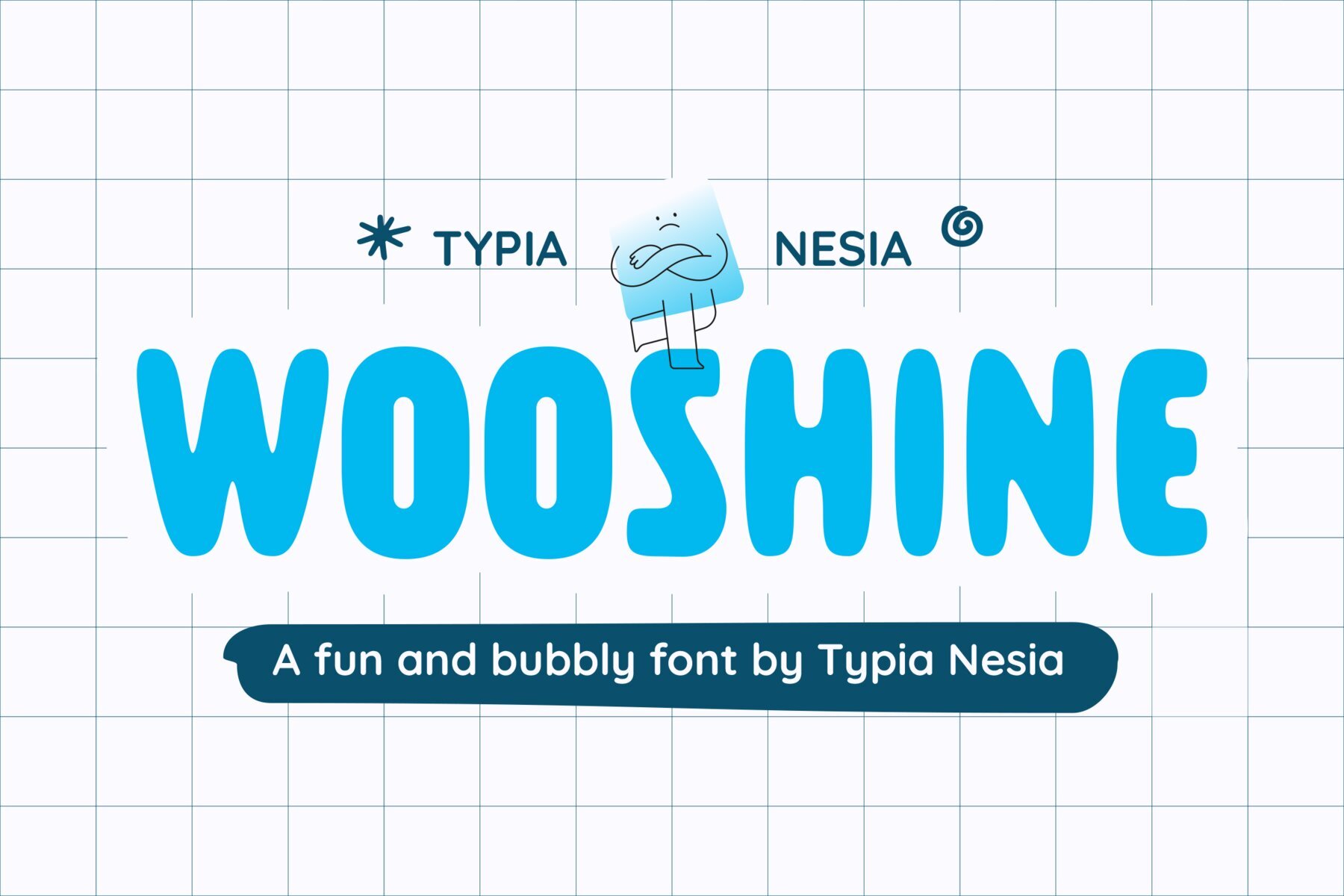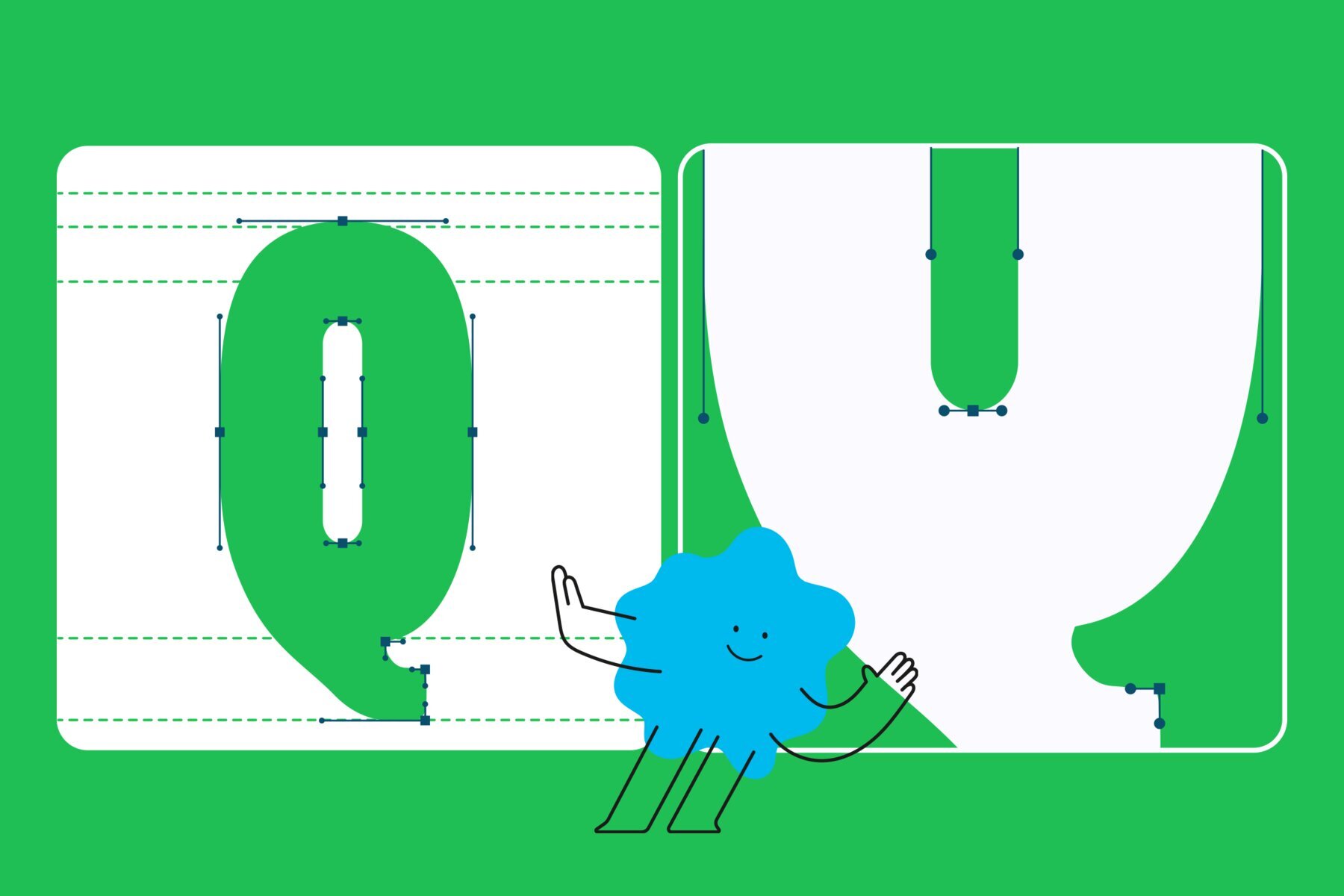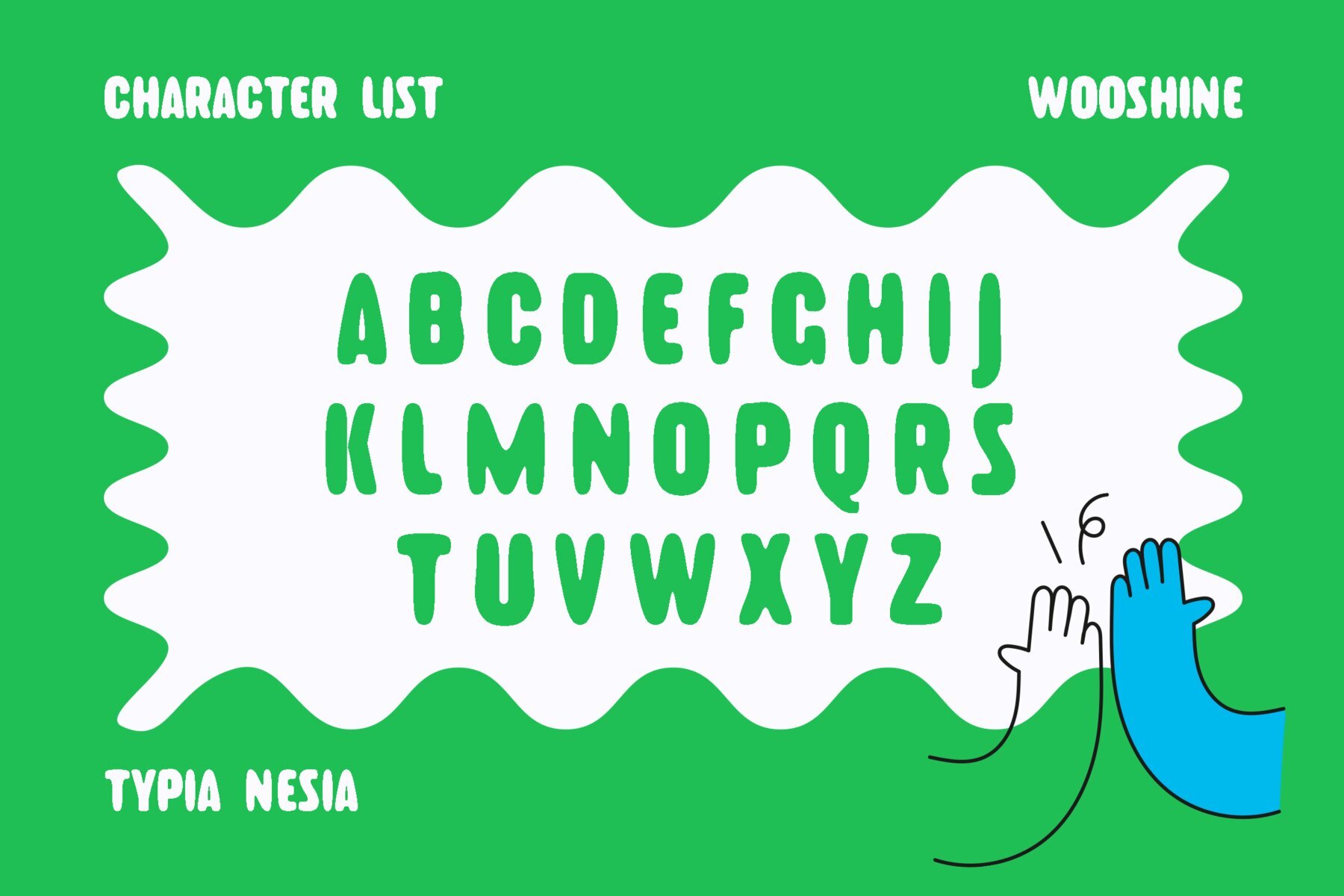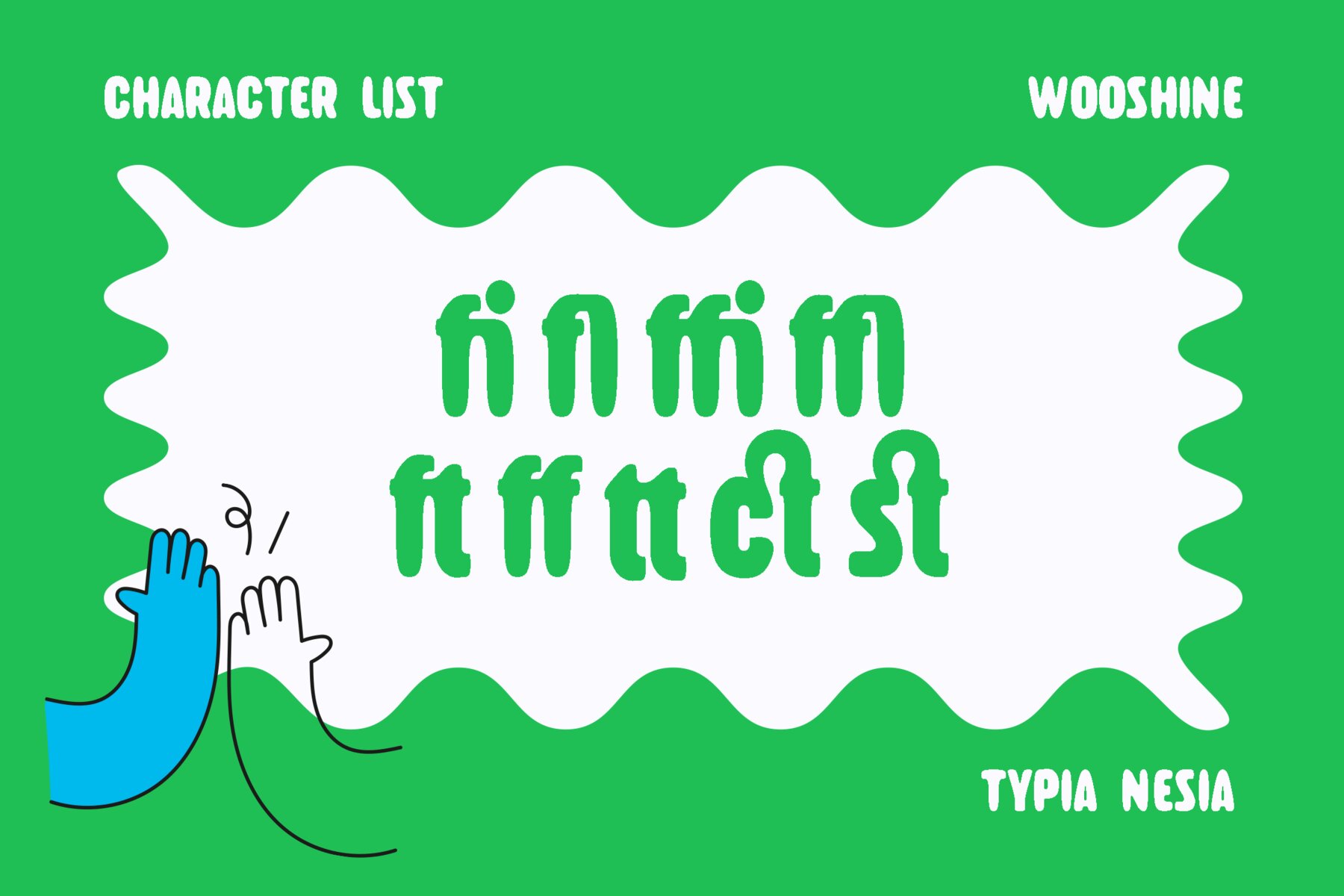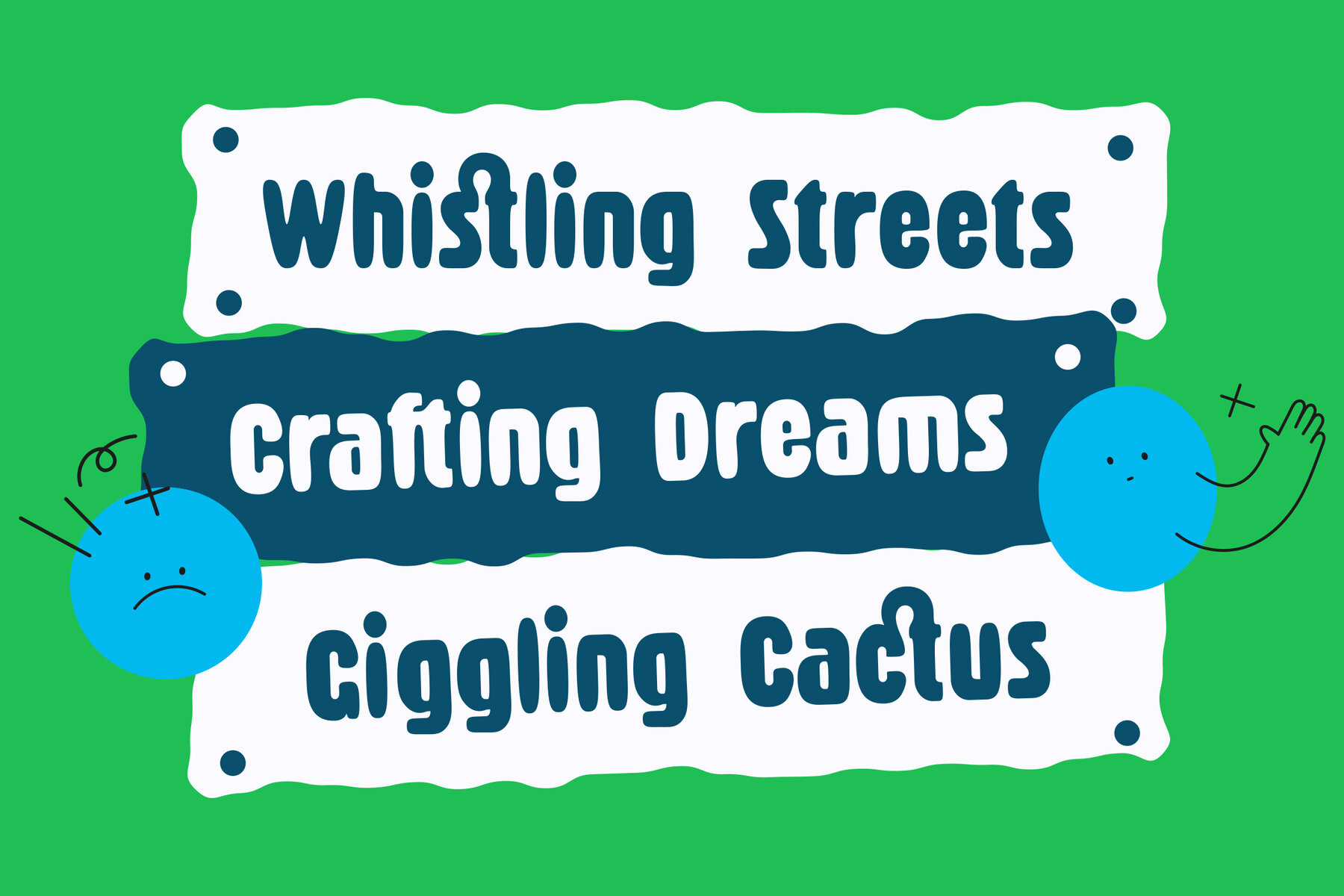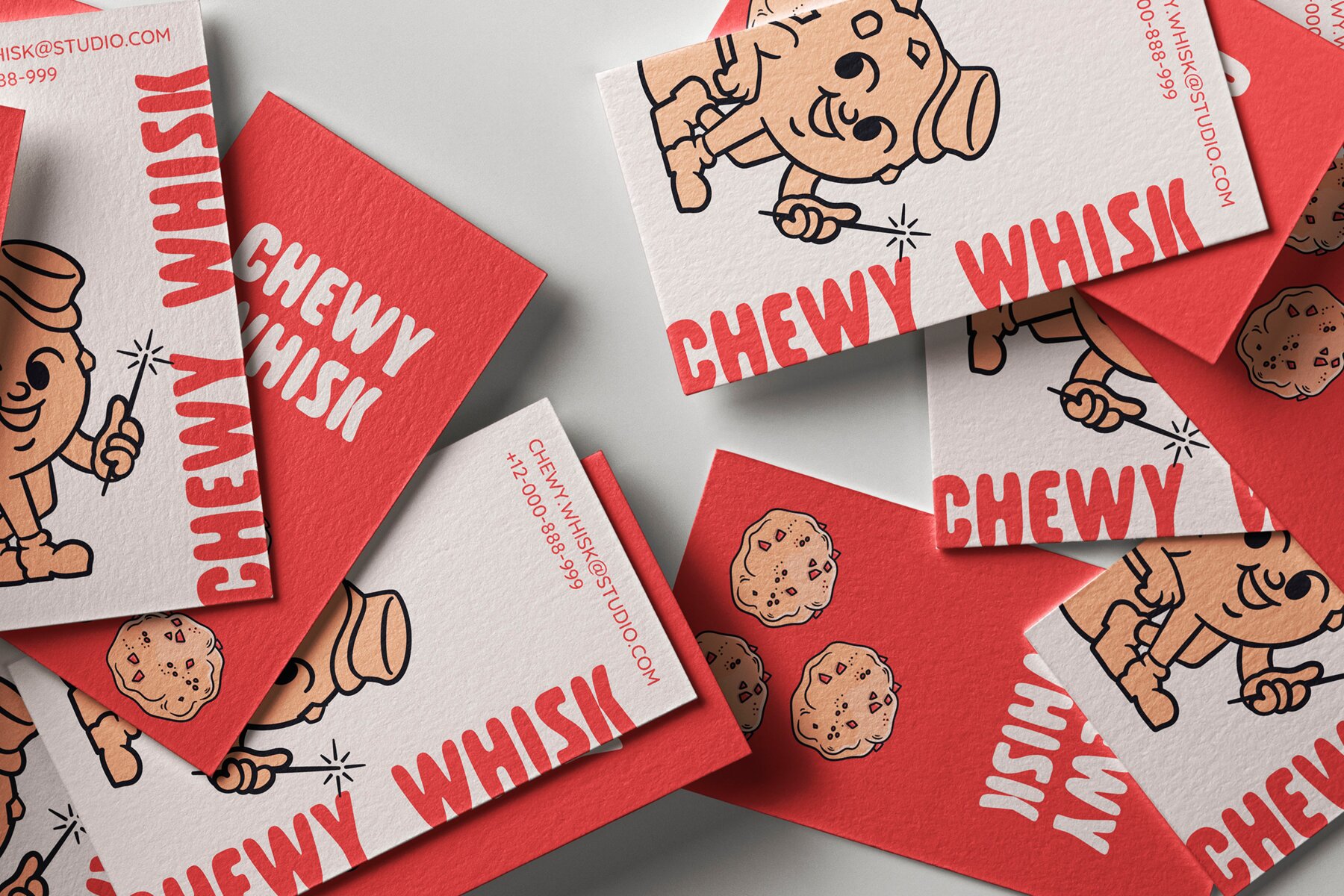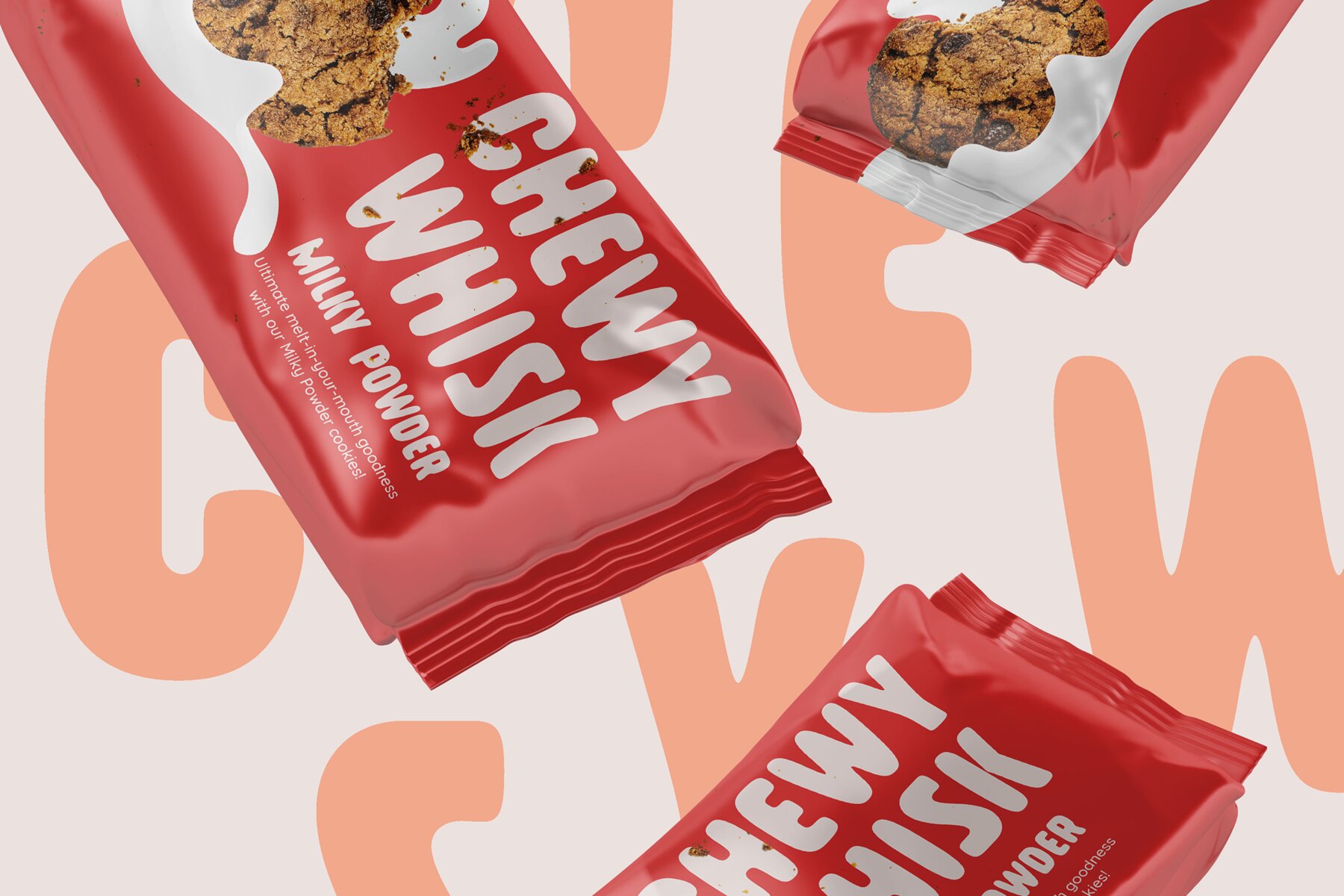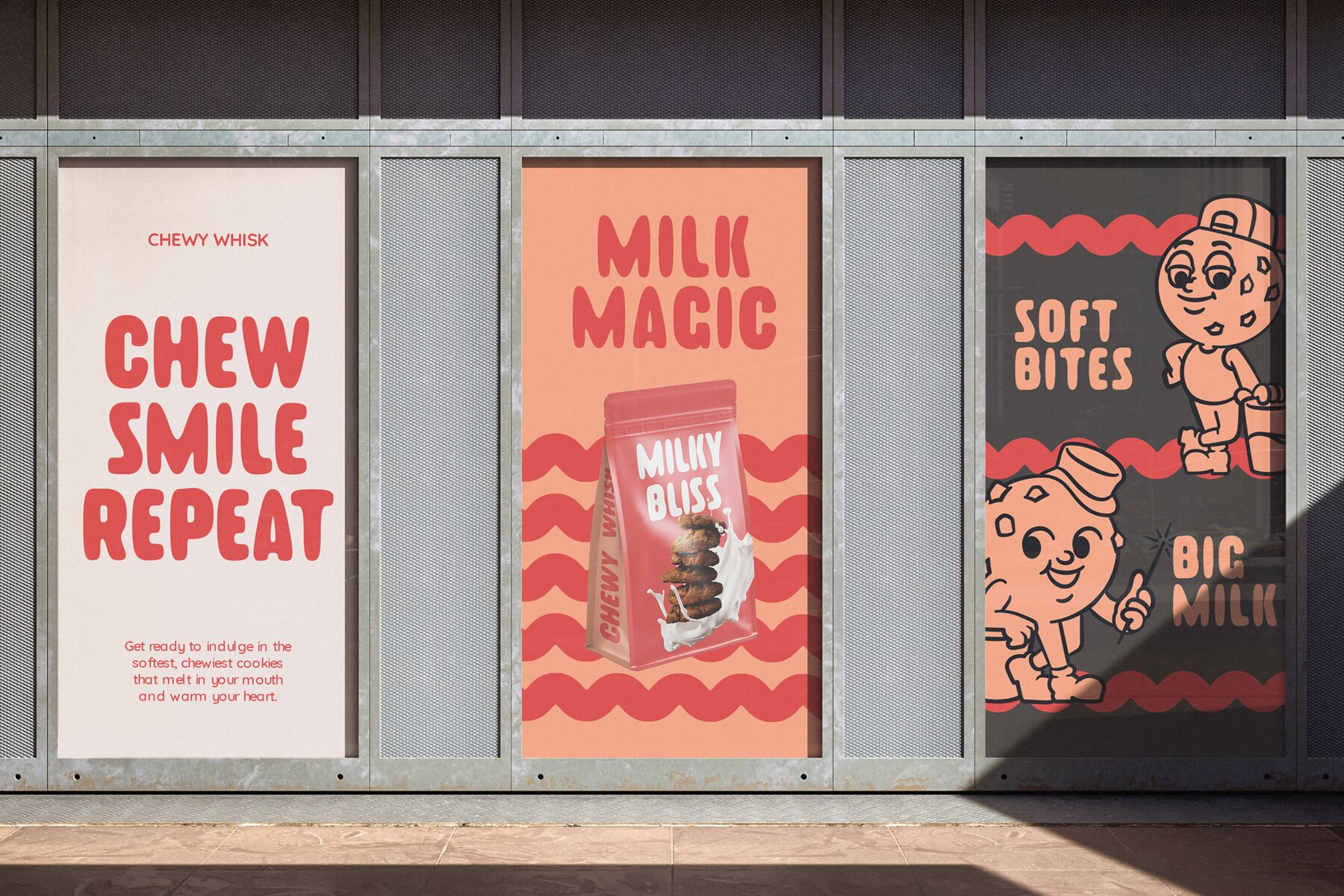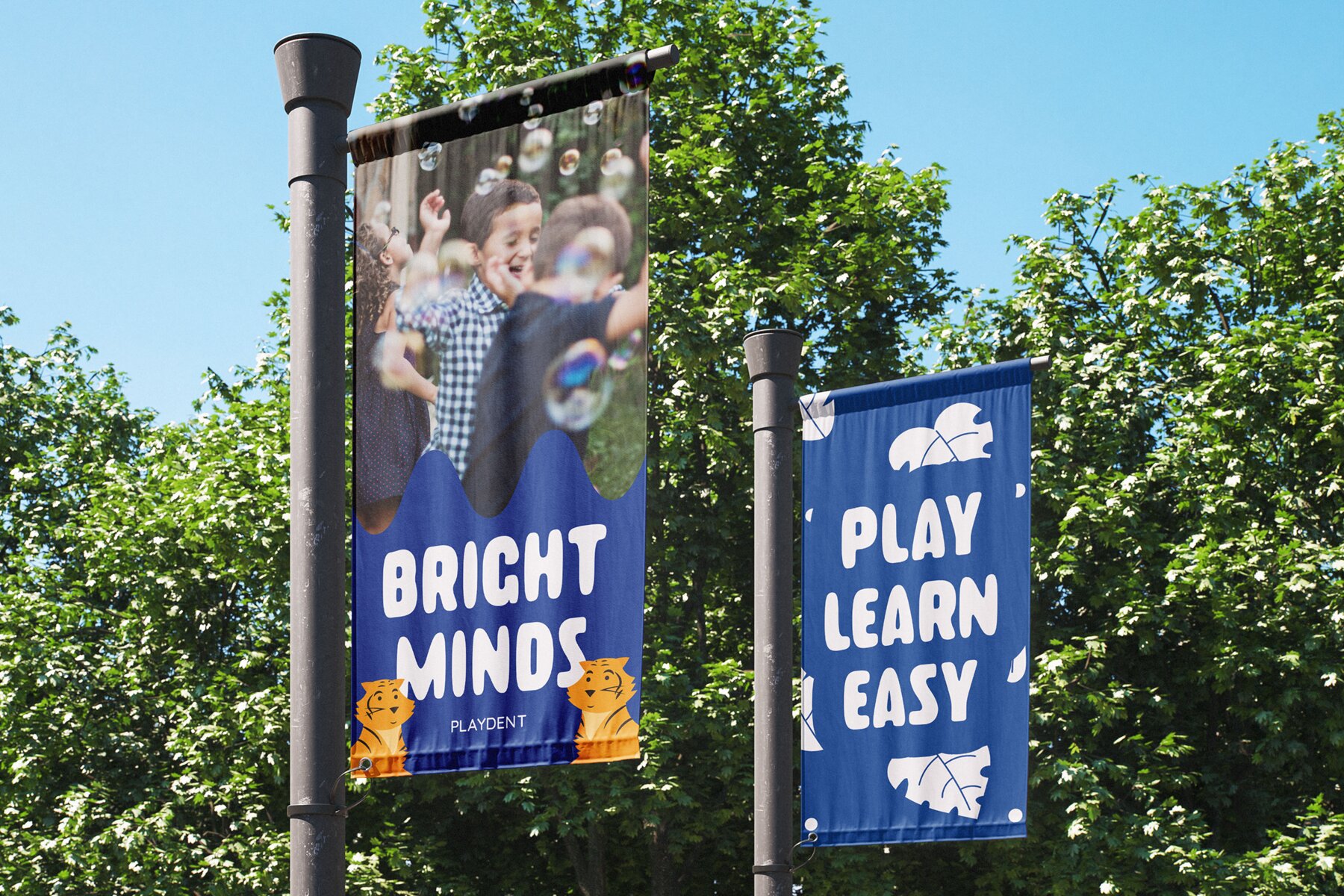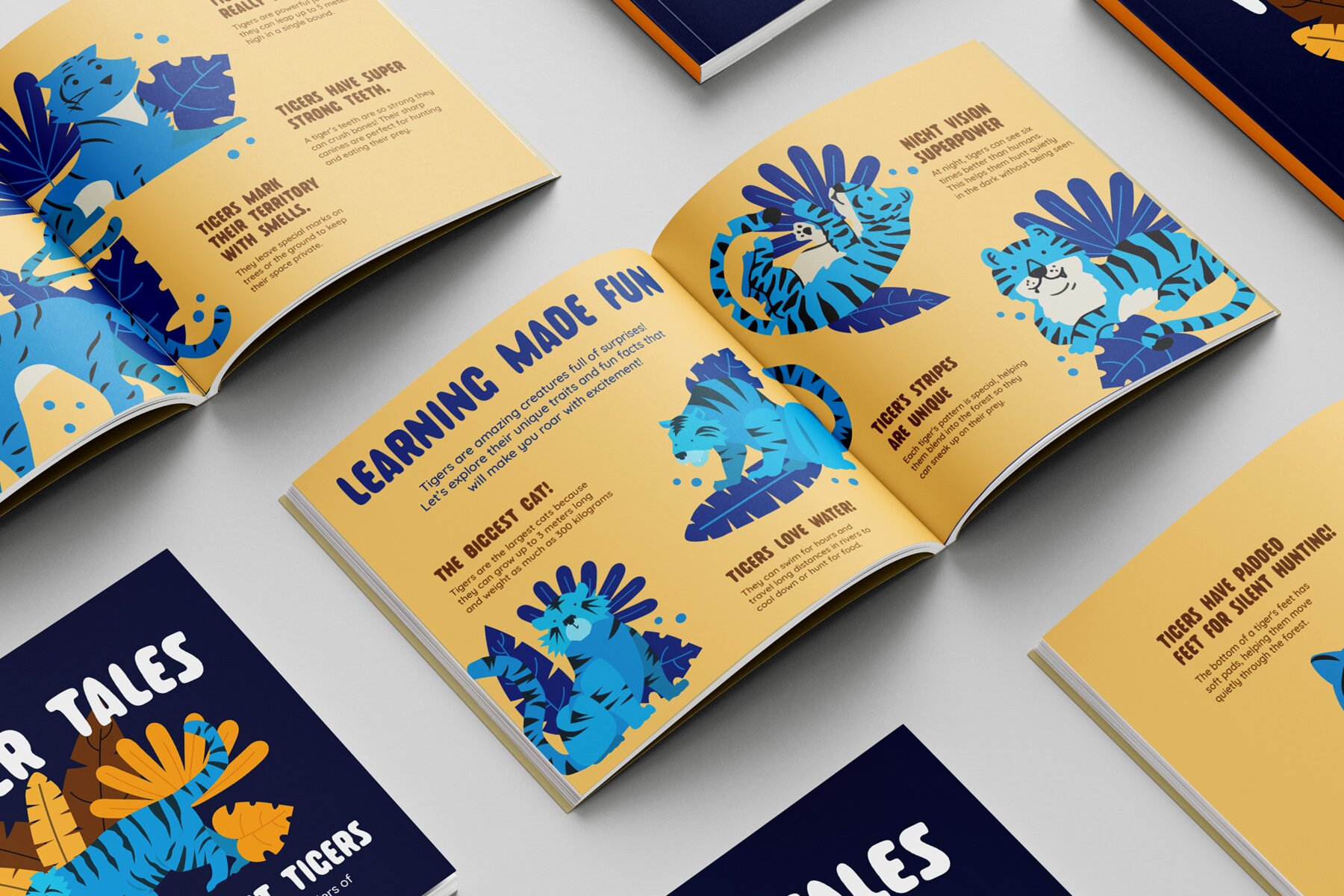
Wooshine Font
Wooshine Regular
Wooshine is a playful and vibrant sans serif font that infuses designs with energy and charm. Its rounded, bubbly shapes and compact style make it ideal for projects that require a cheerful touch, such as children's books, party invitations, and playful branding. Wooshine works superbly for packaging, posters, social media graphics, cartoons, animations, and much more, adding a lively personality to your creative endeavors.
The font comes with a full set of uppercase and lowercase characters, punctuation, numerals, and a variety of ligatures and alternates, offering creative versatility. Additionally, Wooshine provides multilingual support, allowing designers to connect with audiences worldwide seamlessly.